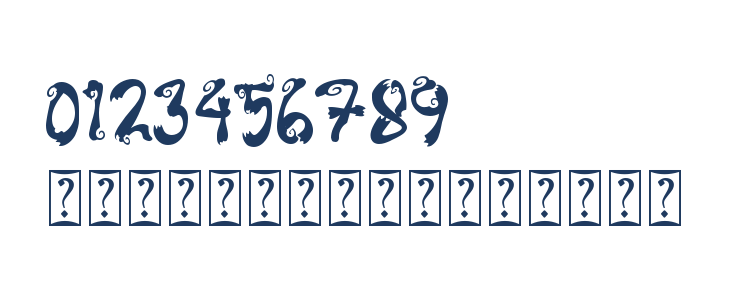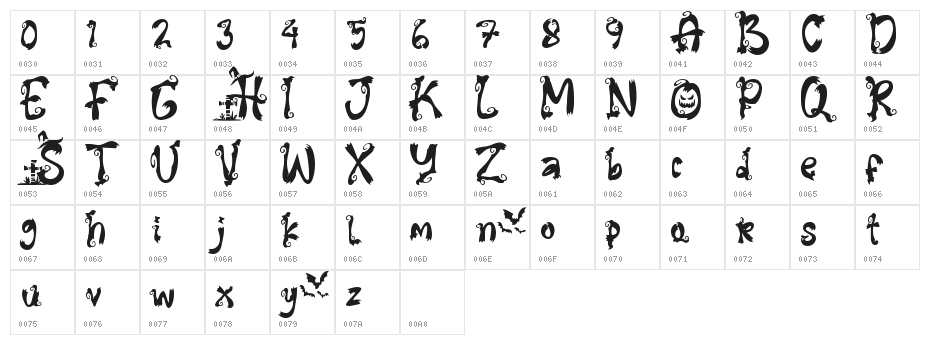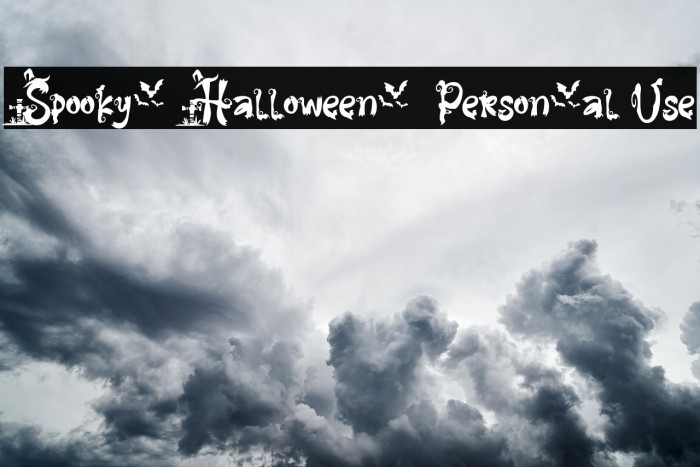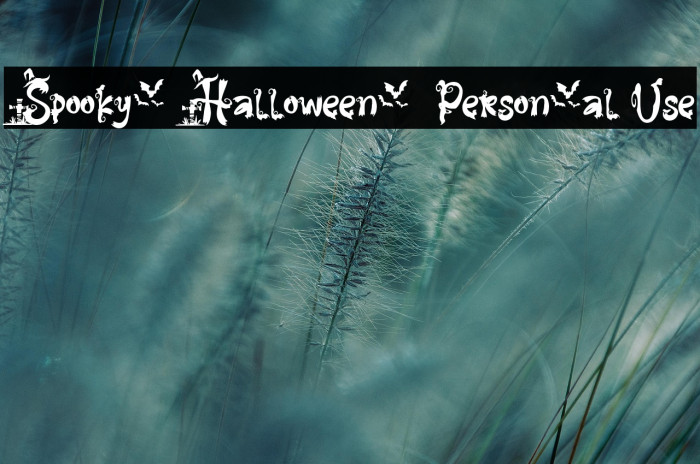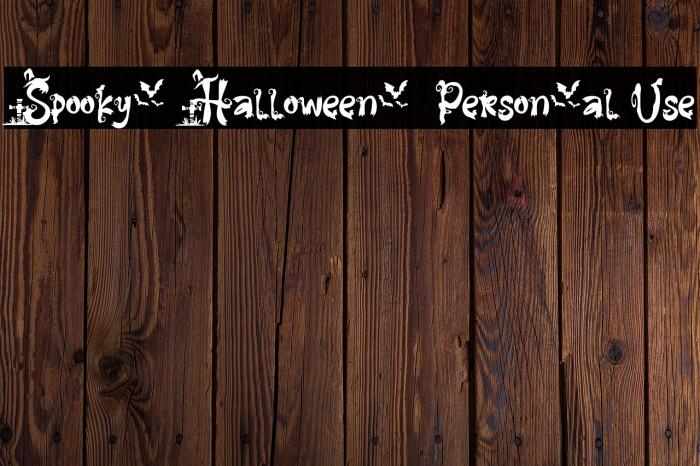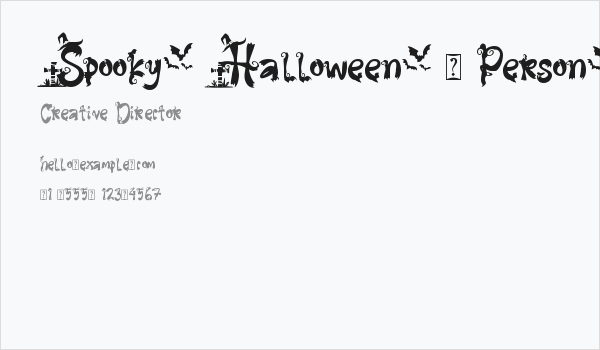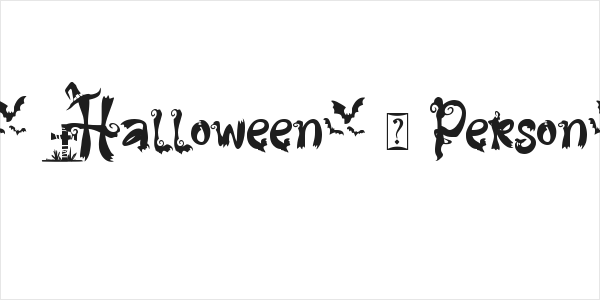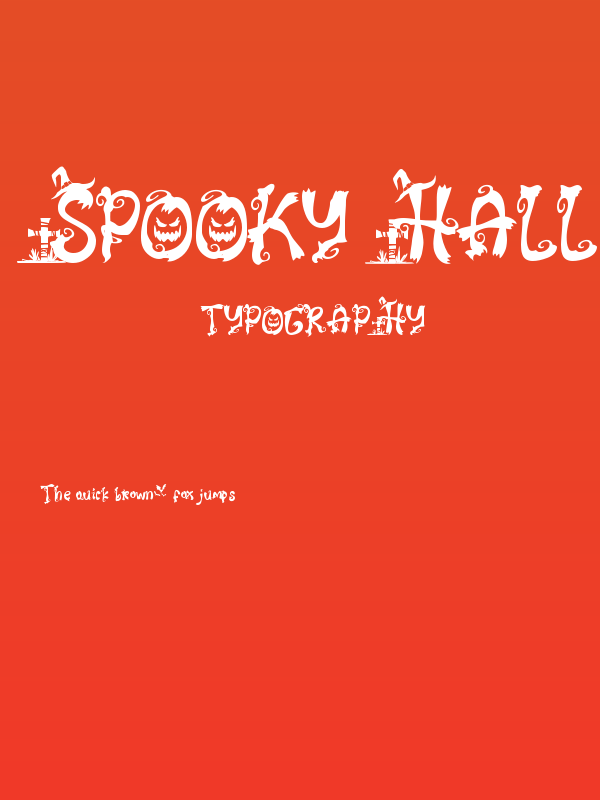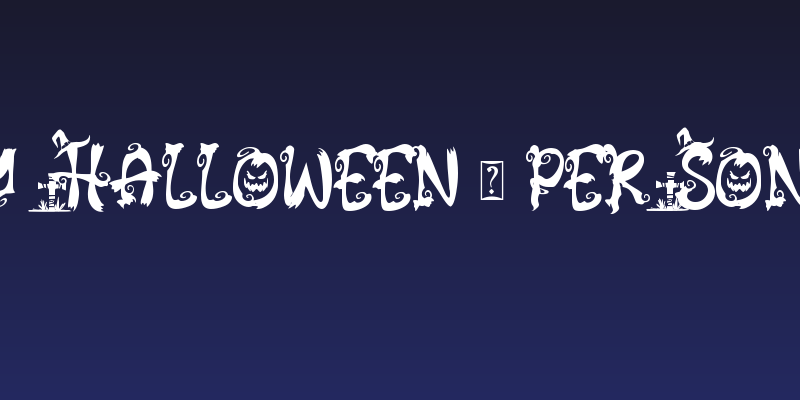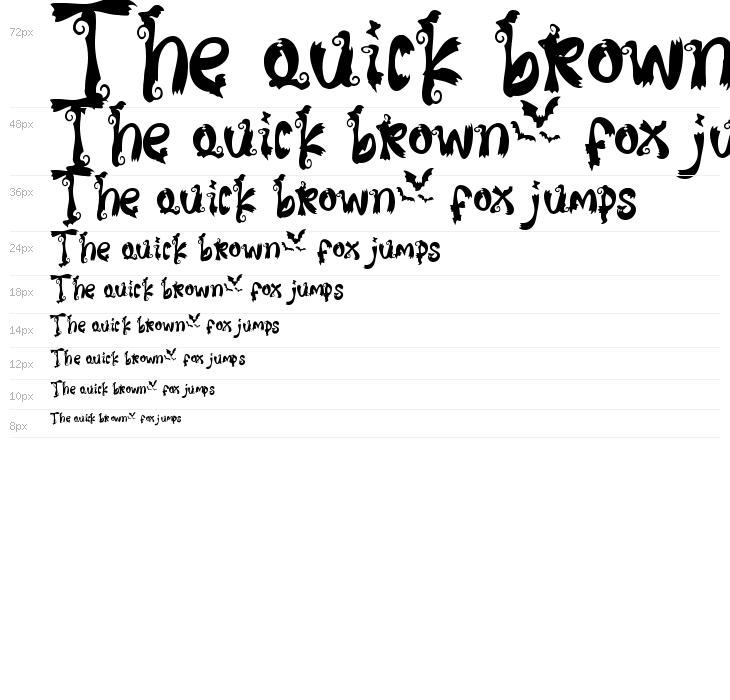
Spooky Halloween - Personal Use Font
Spooky Halloween - Personal Use Description
This font exudes a spooky and whimsical Halloween theme, characterized by its playful and eerie design elements. Each letter is adorned with Halloween motifs such as bats, pumpkins, and haunted houses, creating a distinct and festive appearance. The characters are bold and feature irregular, jagged edges that enhance the spooky aesthetic. The uppercase and lowercase letters maintain a consistent style, with decorative curls and swirls adding to the overall haunted feel. Numbers and special characters are equally thematic, ensuring a cohesive look across all text elements.
| Proposed Projects | Ideal for Halloween party invitations, themed posters, spooky greeting cards, and festive banners. |